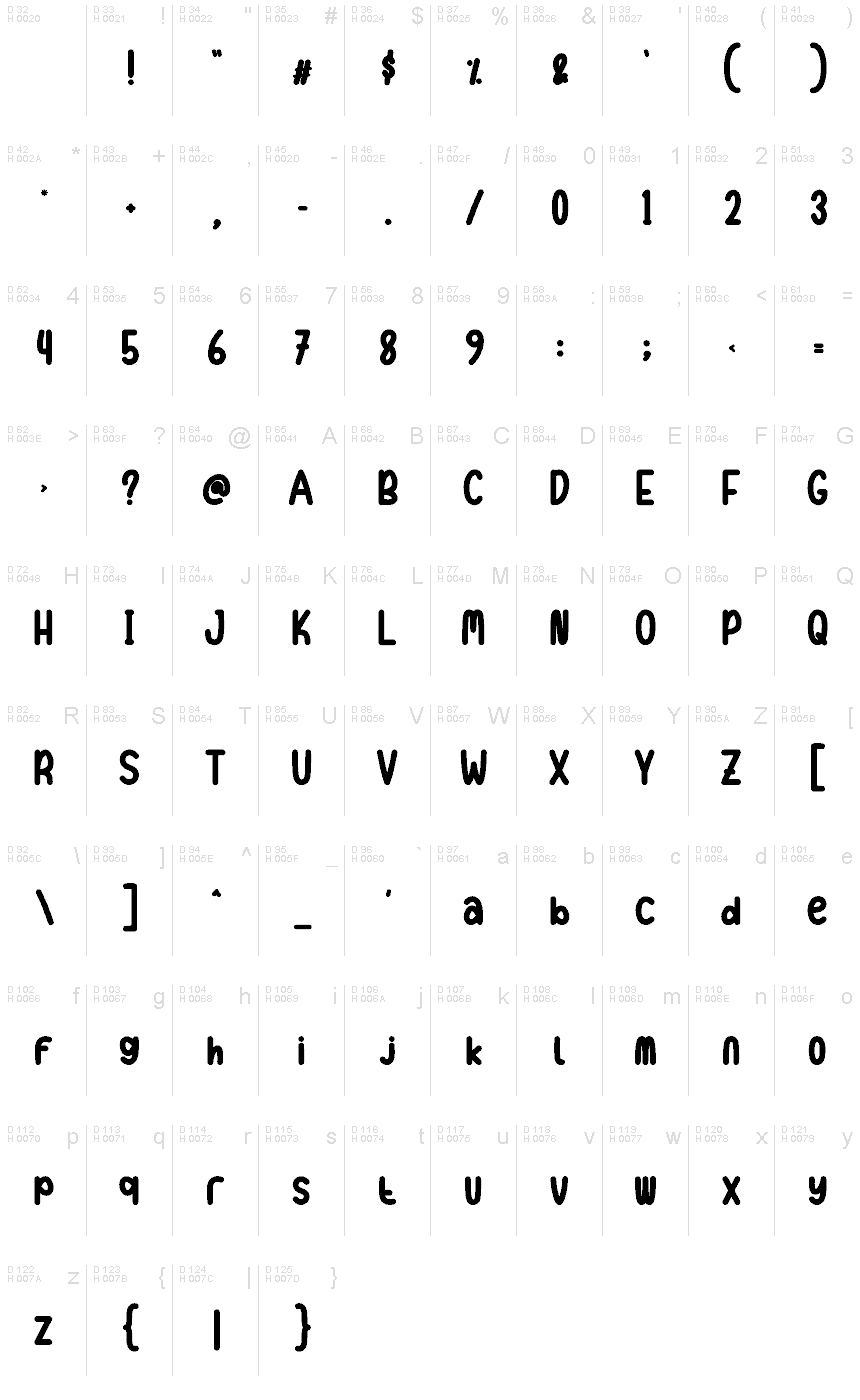
Nightblows
Nightblows font by Andi Moz is a playful and stylish brush font with condensed letters. Its whimsical yet slightly retro style appears friendly, approachable, and very flexible. Each of the alphabet's letters has rounded and smooth corners that make is stand out whether in digital or printed designs.
Use this free brush font on posters, banners, advertising designs, greeting cards, packaging, product labels, magazines titles, branding projects or invited cards. Nightblows' great legibility makes it suitable for both small and large size utilizations across various media.